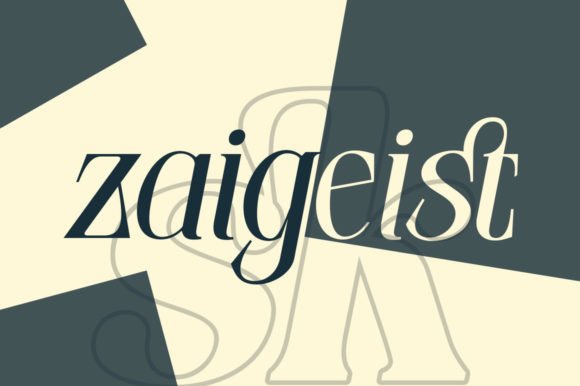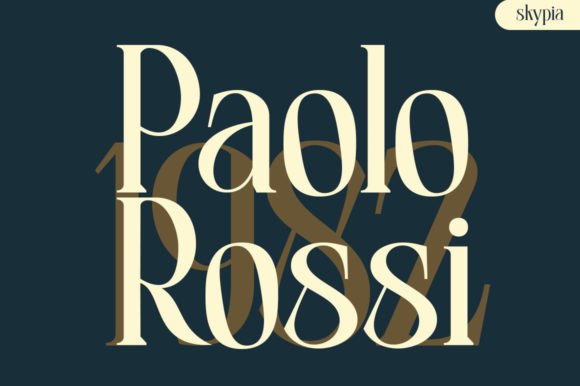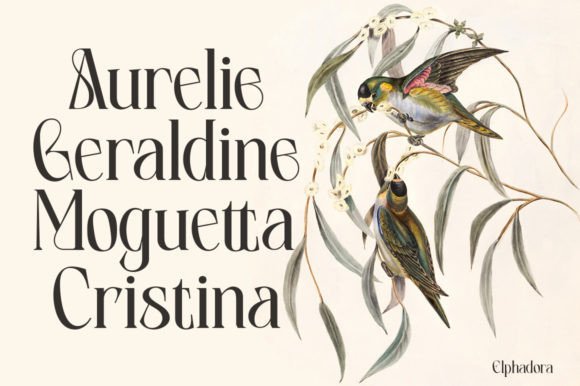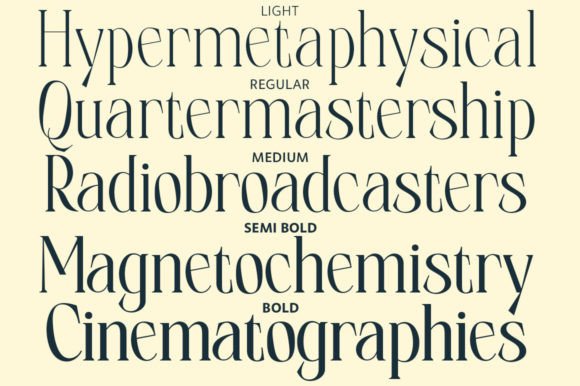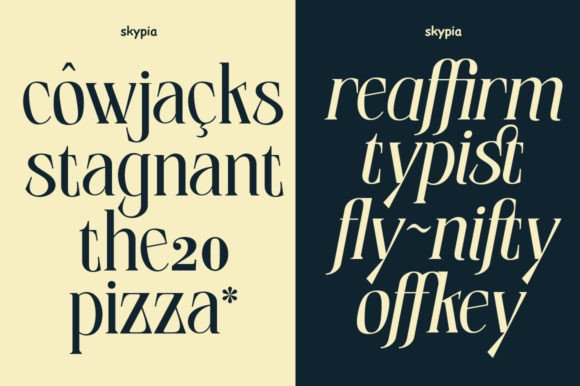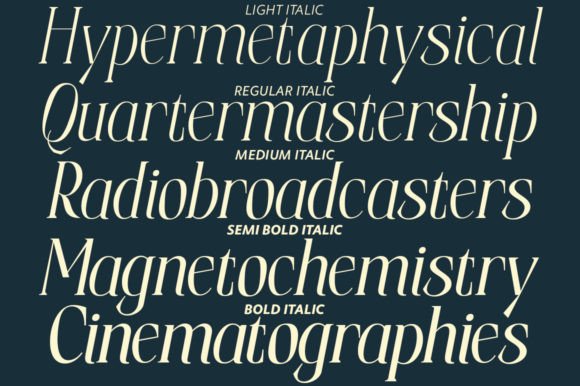
Introducing Elphadora Font: Elevate Your Designs with Elegance and Sophistication
In the world of typography, a font can make all the difference in bringing your creative vision to life. If you’re a designer, craftsperson, or simply someone who appreciates the art of beautiful lettering, you’re in luck. Elphadora Font is a stunning, high-contrast serif display font that seamlessly blends modern and classic elements to create a truly unique and versatile typeface.
A Masterful Design
Elphadora Font is the result of meticulous craftsmanship, designed to capture the essence of elegance and sophistication. Its mixed modern-classic touch sets it apart from other fonts, making it an excellent choice for those seeking a distinctive look. Whether you’re working on a branding project, packaging design, or simply want to add a touch of refinement to your digital creations, Elphadora Font is sure to impress.
PUA Encoding for Effortless Access
One of the standout features of Elphadora Font is its PUA (Private Use Area) encoding. This means that you can easily access all the glyphs and ligatures, giving you unparalleled creative control. No more tedious searching for the perfect character or struggling with complicated font combinations. With Elphadora Font, you can focus on bringing your ideas to life, not wrestling with technical limitations.
Elphadora Font is more than just a pretty face – it’s a versatile tool that can elevate a wide range of design projects. Imagine using it for:
- Logos and branding: Create a lasting impression with a sophisticated, high-end look that sets your brand apart.
- Packaging design: Add a touch of luxury to your product packaging and make it stand out on store shelves.
- Digital designs: Use Elphadora Font to add a level of sophistication to your social media graphics, website headers, or email newsletters.
- Stationery and paper goods: Create beautiful, professional-looking stationery, business cards, or greeting cards that showcase your personal style.
Why Choose Elphadora Font?
With so many fonts available, why choose Elphadora Font? Here are just a few compelling reasons:
- Unique style: Elphadora Font boasts a distinctive, high-contrast serif design that’s sure to turn heads.
- Versatility: Use it for a wide range of design projects, from logos and branding to digital designs and packaging.
- Easy to use: PUA encoding makes it simple to access all the glyphs and ligatures, so you can focus on creating.
- High-quality design: Elphadora Font is crafted with attention to detail, ensuring a professional finish every time.
In conclusion, Elphadora Font is a game-changer for designers, craftspersons, and anyone who appreciates the art of beautiful typography. Its unique blend of modern and classic elements, combined with PUA encoding for effortless access, makes it an indispensable tool for bringing your creative vision to life. Whether you’re working on a branding project, packaging design, or simply want to add a touch of elegance to your digital creations, Elphadora Font is the perfect choice. So go ahead, give it a try, and experience the transformative power of beautiful typography!